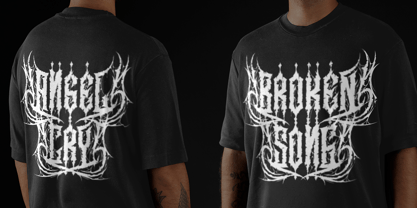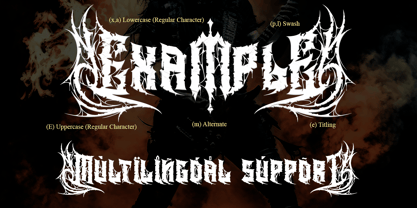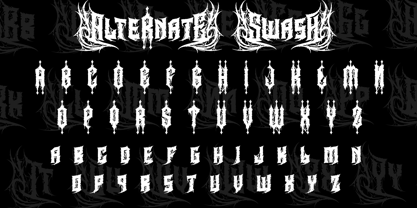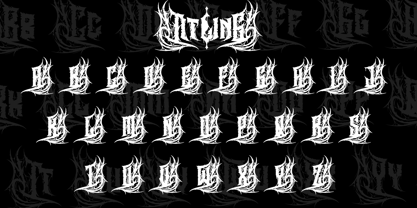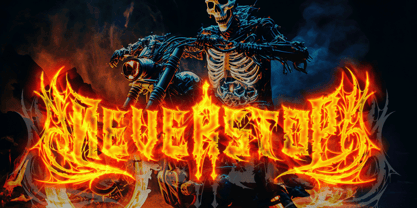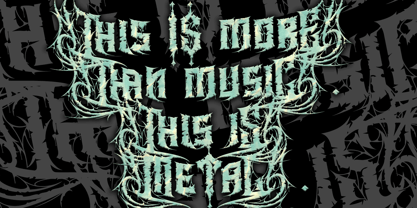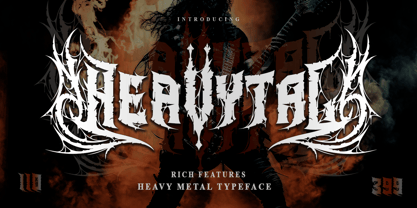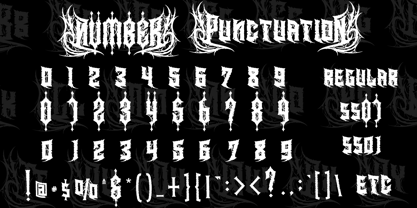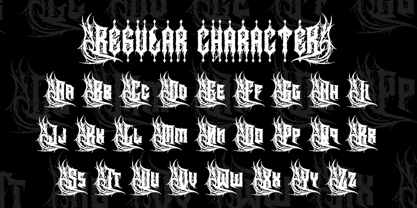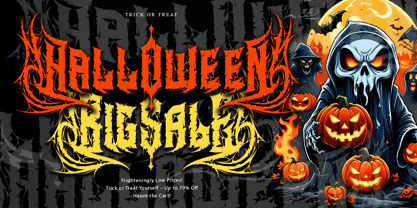
Heavytal
by Letterara
The Heavytal Font Family was designed by Thomas Aradea and published by Letterara. Heavytal contains 2 styles and family package options.
Descend into the heart of raw power with Heavytal, a font that captures the very essence of heavy metal. With its heavy, imposing strokes and sharp, angular form, Heavytal embodies the fierce energy and rebellious spirit of the genre. This font, forged from the fire of relentless riffs and thunderous drums, commands authority with every letter. Its bold design makes it the perfect choice for album covers, band logos, concert posters, and merchandise. Whether you’re designing for a metal band or creating a work that demands strength, Heavytal will ensure your message is heard loud and clear. Let the relentless force of Heavytal infuse your work with unbridled intensity, leaving an unforgettable imprint wherever it’s used.
Designers: Thomas Aradea
Publisher: Letterara
Foundry: Letterara
Design Owner: Letterara
Heavytal